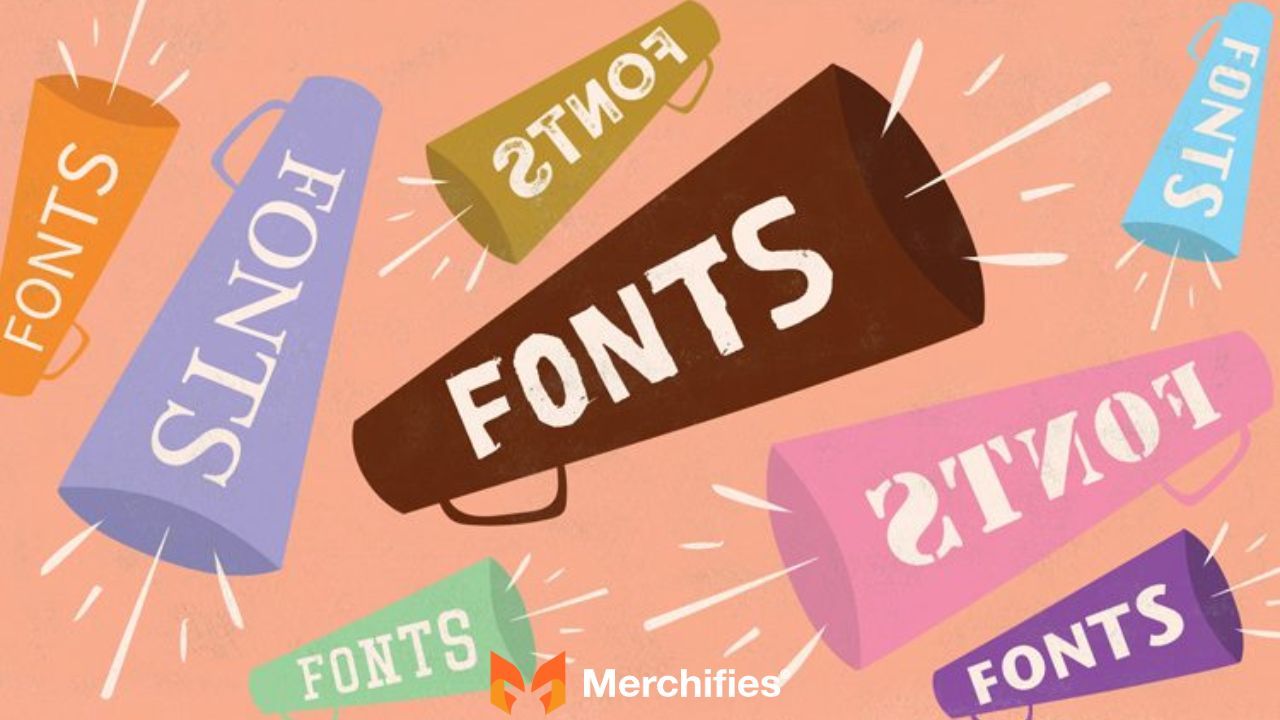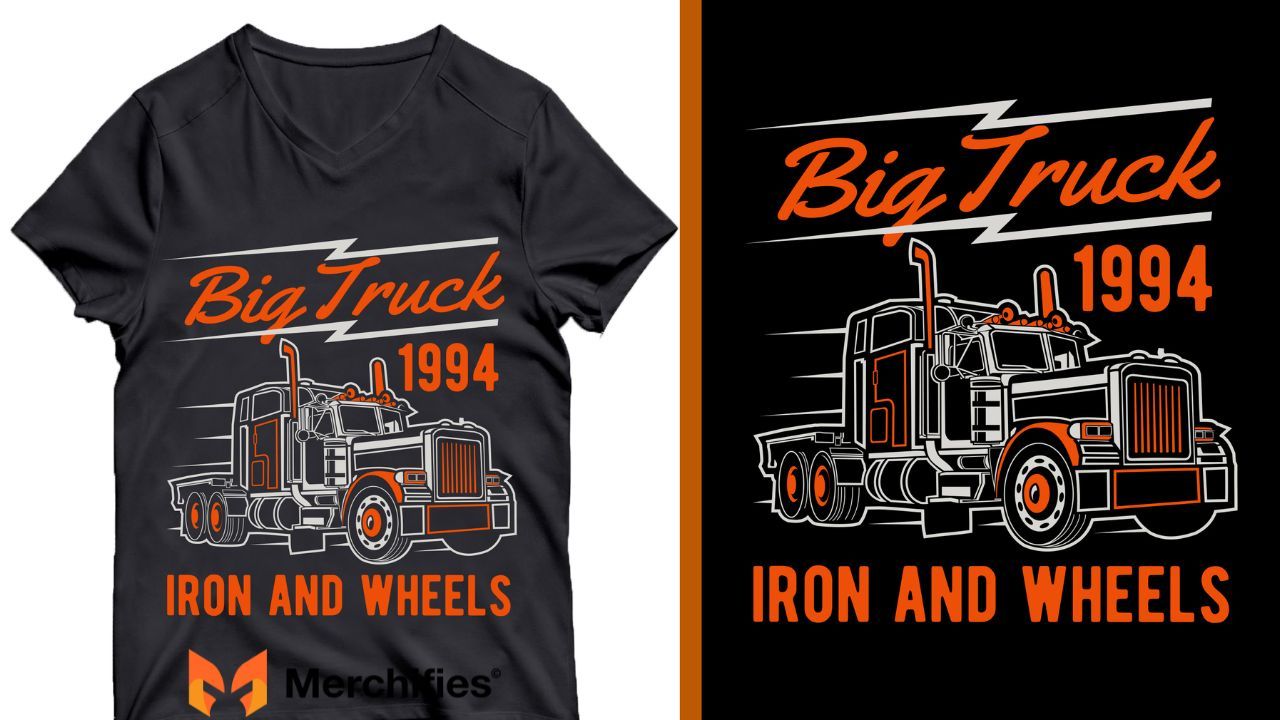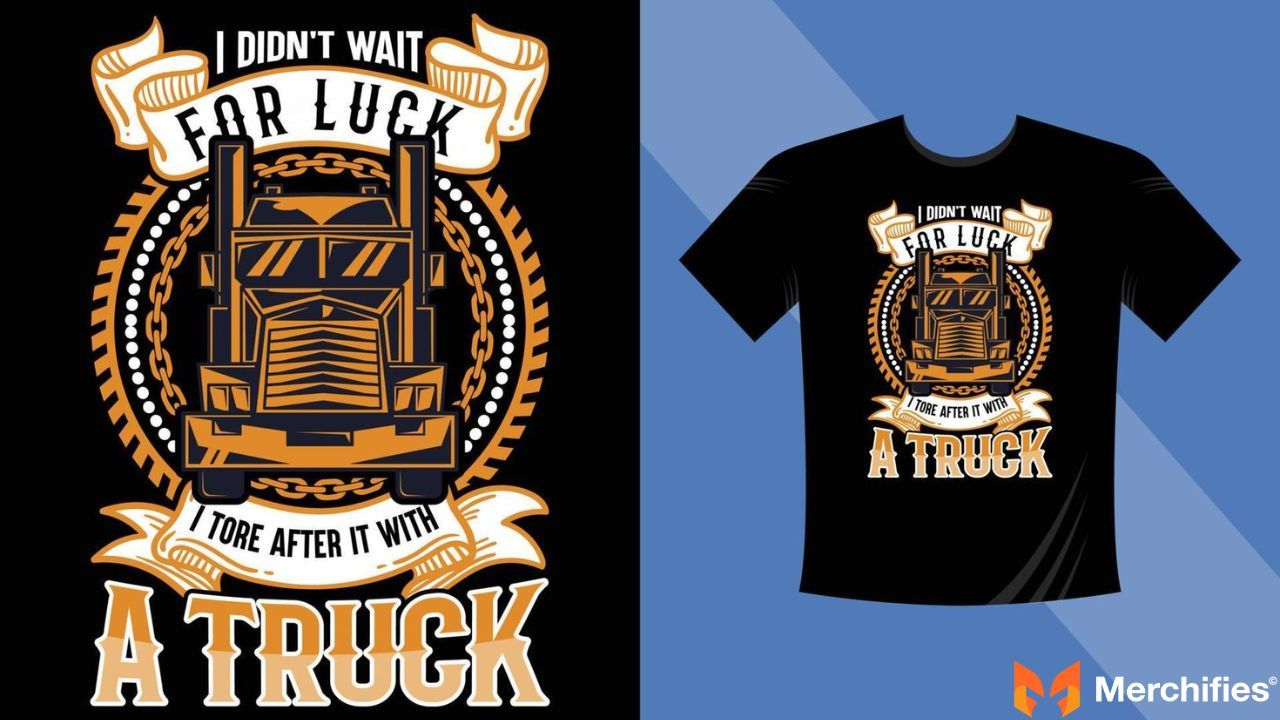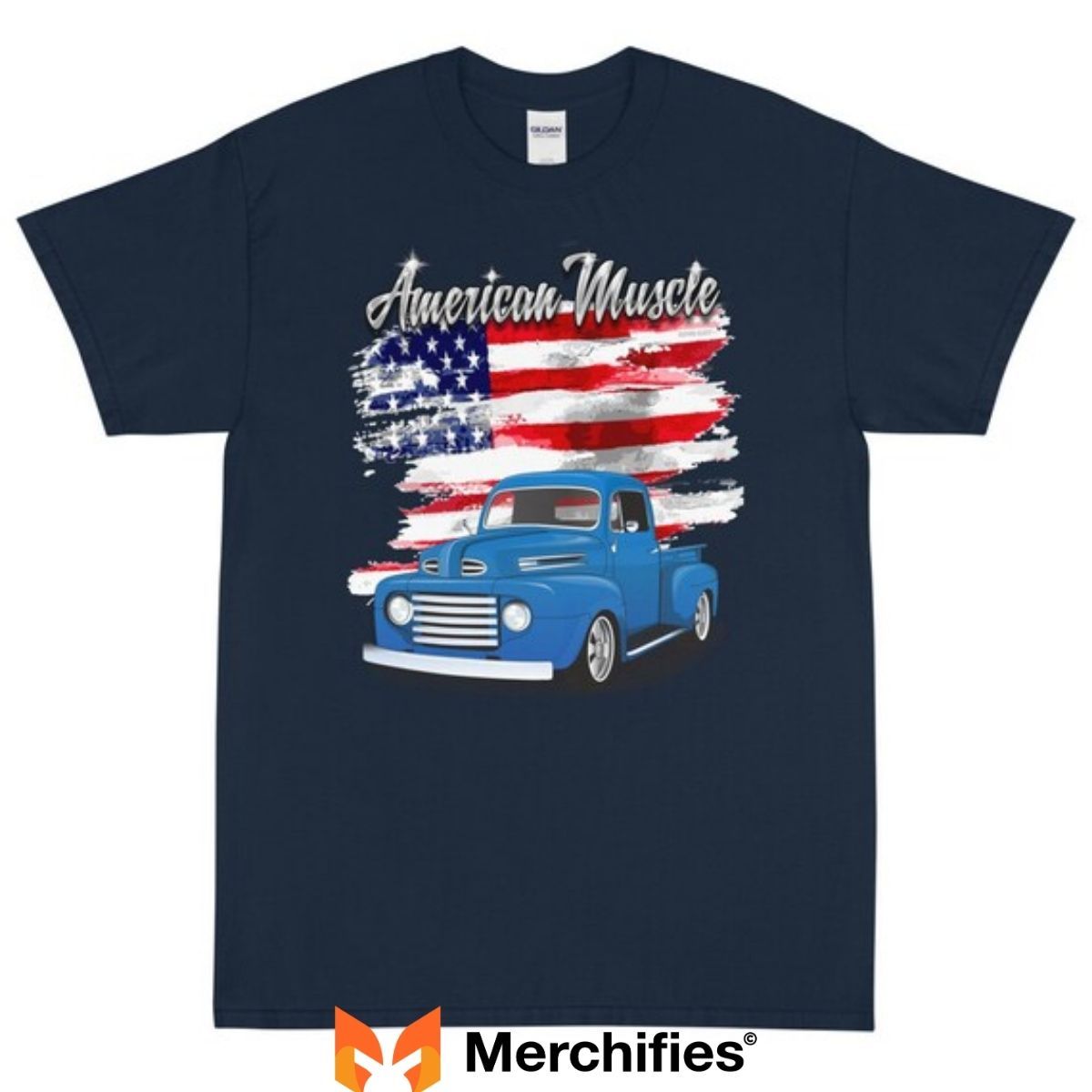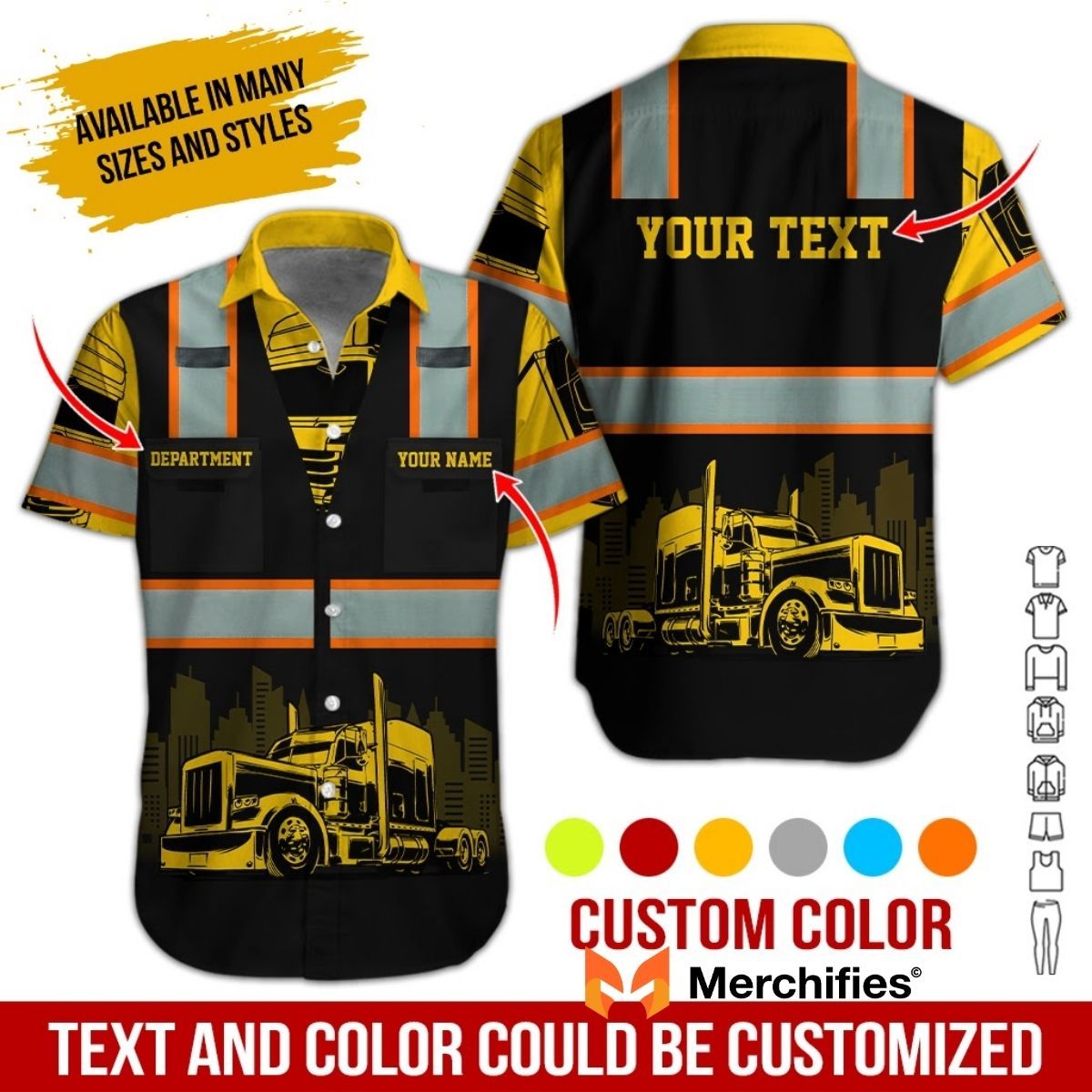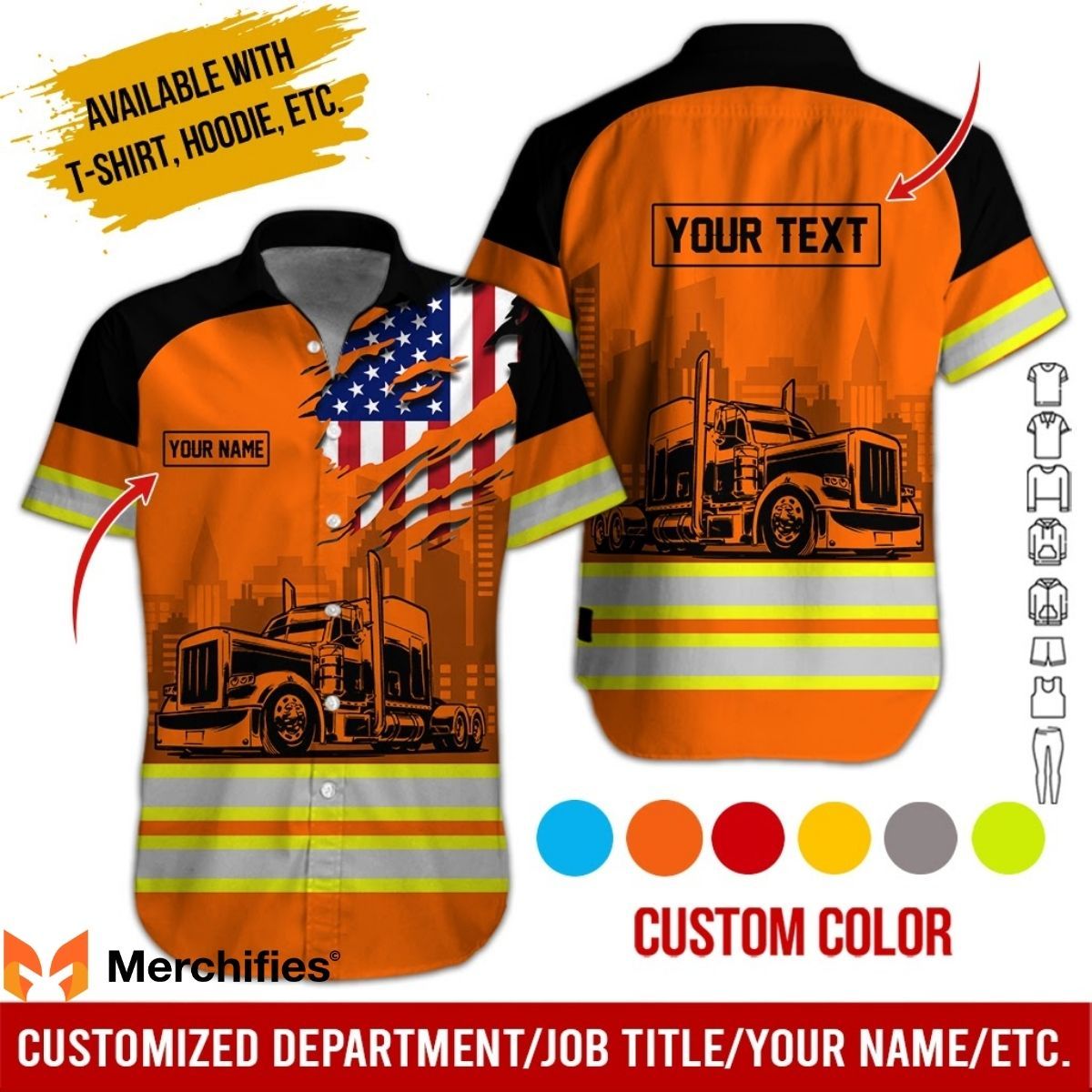
Fonts & Colors That Make Your Truck Shirts Stand Out
Truck shirts are all about bold style and strong personality. The right fonts and color combinations can make a design stand out instantly, whether it’s for truck drivers, trucking families, or fans of big rigs. Choosing the correct typography and color palette ensures that the design remains readable from a distance and reflects the rugged spirit of the trucking lifestyle. In this guide, you’ll discover the best fonts and color choices that make truck shirts pop. From bold industrial lettering to vintage road-style typography, along with high-contrast color combinations like black and yellow or red and white, these design tips will help create eye-catching truck shirts perfect for events, road trips, and everyday wear.
Design matters when you're selling truck shirts or creating your own trucker apparel. The right combination of truck shirt fonts and truck shirt color palette can mean the difference between a shirt that sits in inventory and one that sells out in days. After years of working with trucking apparel brands and POD sellers, I've seen firsthand what works on the highway and what doesn't.
This guide breaks down everything you need to know about typography and color theory for trucking designs. Whether you're a print-on-demand seller, a trucker designing personal gear, or an entrepreneur entering the trucking apparel market, these strategies will help your shirts grab attention at truck stops, online stores, and everywhere in between.
Understanding Truck Shirt Fonts
Typography does more than spell out words. It conveys emotion, identity, and attitude before anyone even reads your message.
The Psychology Behind Font Choices
Fonts speak to truckers on a gut level. A Gothic font screams rebellion and road warrior attitude. A bold sans-serif shouts confidence and professionalism. Vintage lettering whispers nostalgia for trucking's golden era. Every font choice triggers an emotional response, so pick one that matches your message.
Truckers wear their identity on their chest. The font you choose should reflect their pride, their struggles, and their lifestyle. Get it wrong, and your design feels disconnected. Get it right, and truckers will wear your shirt like a badge of honor.
Best Font Styles for Trucking Apparel
1. Gothic and Industrial Fonts
These dark, edgy typefaces dominate trucking designs for good reason. Fonts like Black Star, Dark Widow, and Ravenholm carry a rebellious edge that resonates with drivers who live outside traditional 9-to-5 culture. The heavy strokes and sharp angles mirror the toughness of life on the road.
2. Bold Sans-Serif Fonts
Clean, thick, and visible from a mile away—literally. Bold sans-serif fonts work perfectly for truck driver t-shirt designs that need maximum readability. Think of highway signs and safety gear. These fonts do the same job: communicate clearly and instantly.
3. Vintage and Retro Fonts
The 70s through 90s represent trucking's glory days for many drivers. Retro typography taps into that nostalgia with curved letters, classic proportions, and Americana charm. These fonts work brilliantly for designs celebrating trucking history and culture.
4. Stencil Fonts
Military precision meets utilitarian strength. Stencil fonts convey discipline, organization, and no-nonsense professionalism. They're ideal for trucking businesses or designs emphasizing safety and regulation compliance.
5. Distressed and Rough Fonts
Weathered, worn, and road-beaten—these fonts authentically represent the trucker experience. The imperfections add character and realness that polished fonts can't match. Perfect for designs about the challenges and realities of long-haul driving.
6. Bold Script Fonts
Script fonts can work, but only if they're thick enough to stay readable. Thin, delicate cursive disappears on fabric from even a short distance. Use bold script sparingly for "signature style" quotes or personal mottos.
Typography Rules for Readable Truck Shirts
7. Stick to 1-2 Fonts Maximum
More fonts create visual chaos. Pick one strong display font for your main message and optionally add a simple supporting font for secondary text. That's it.
Typography Rules for Readable Truck Shirts
8. Choose Ultra-Bold Weights
Thin fonts fail on t-shirts. From across a parking lot, delicate lettering vanishes completely. Go bold or go invisible—there's no middle ground for trucker shirt typography.
9. Test From 10 Feet Away
Pull up your design on a screen and walk across the room. Can you still read it clearly? If not, increase size or weight. Shirts get viewed from distance constantly at truck stops and rest areas.
10. Adjust Kerning Carefully
Letter spacing makes or breaks professional appearance. Letters that crowd together look amateur. Letters with excessive gaps look disconnected. Take the extra minute to adjust spacing manually.
11. Keep Ornate Fonts Short
Start designing with these principles today. Your improved font choices and smarter truck shirt color palettes will show up immediately in better conversion rates and fewer returned products. That's the difference between guessing and knowing what works for trucking apparel